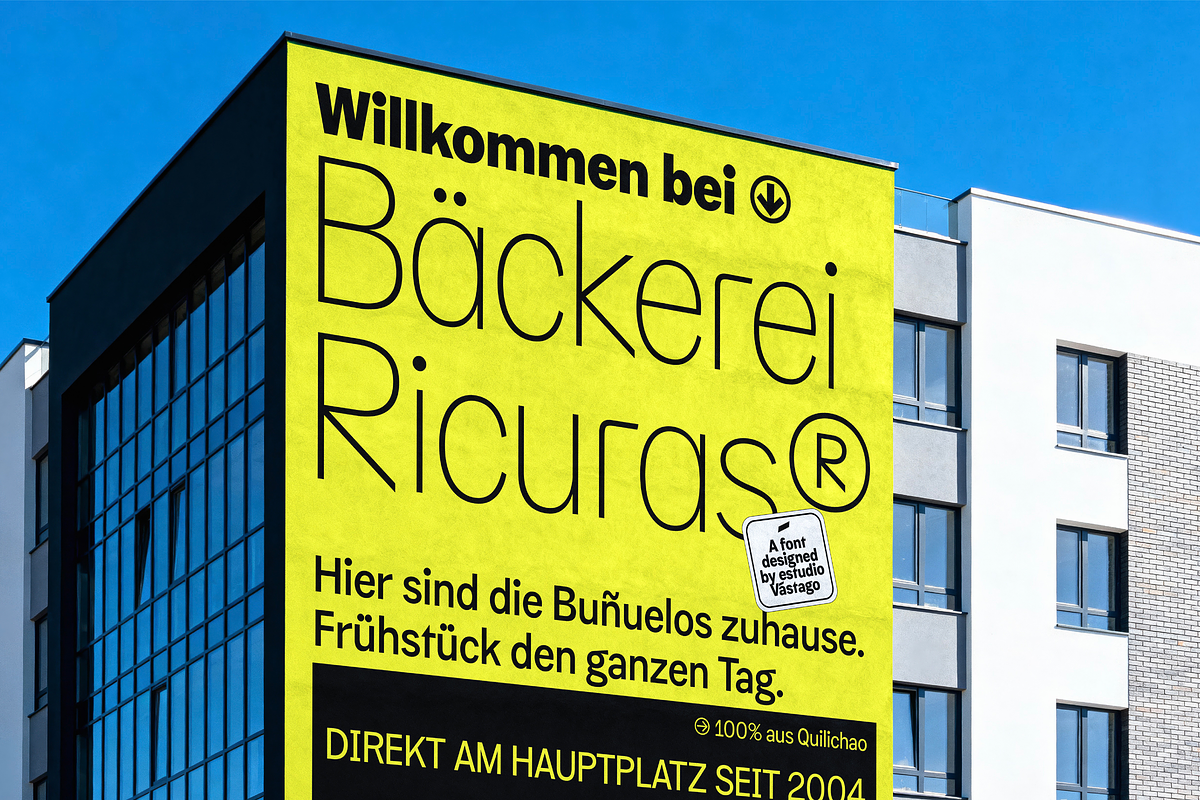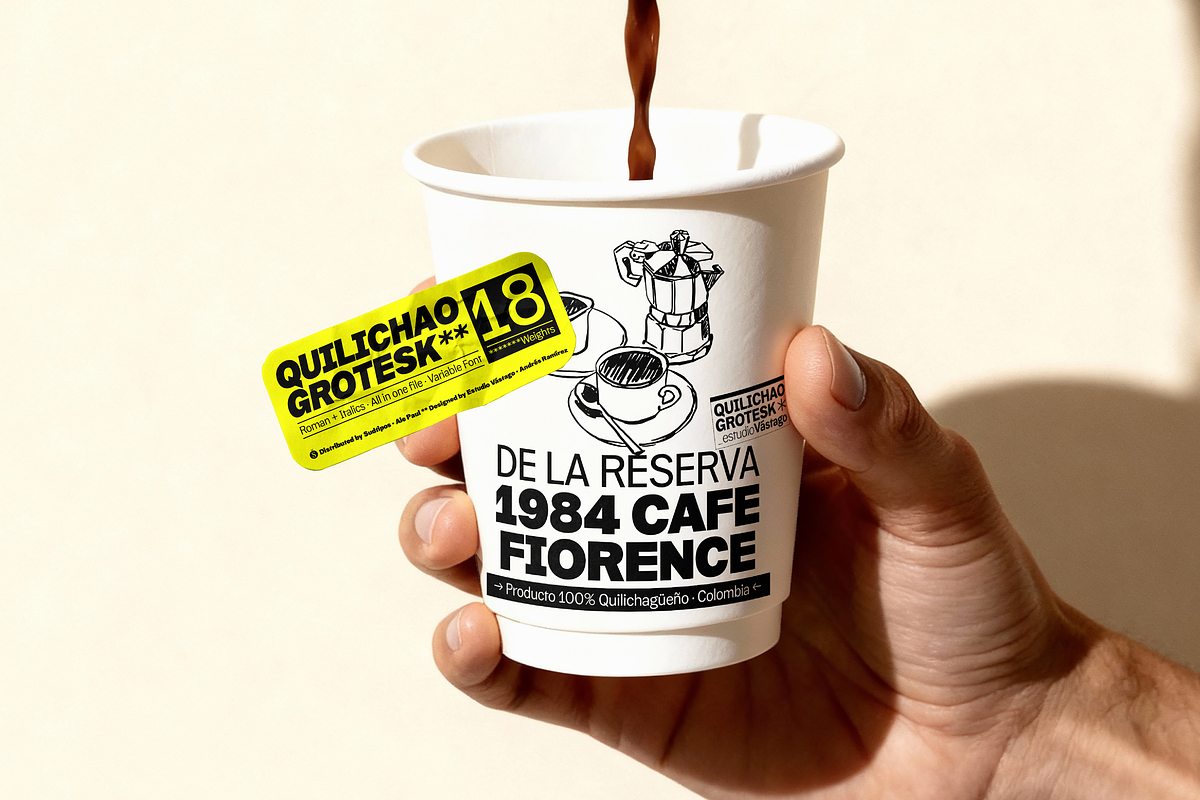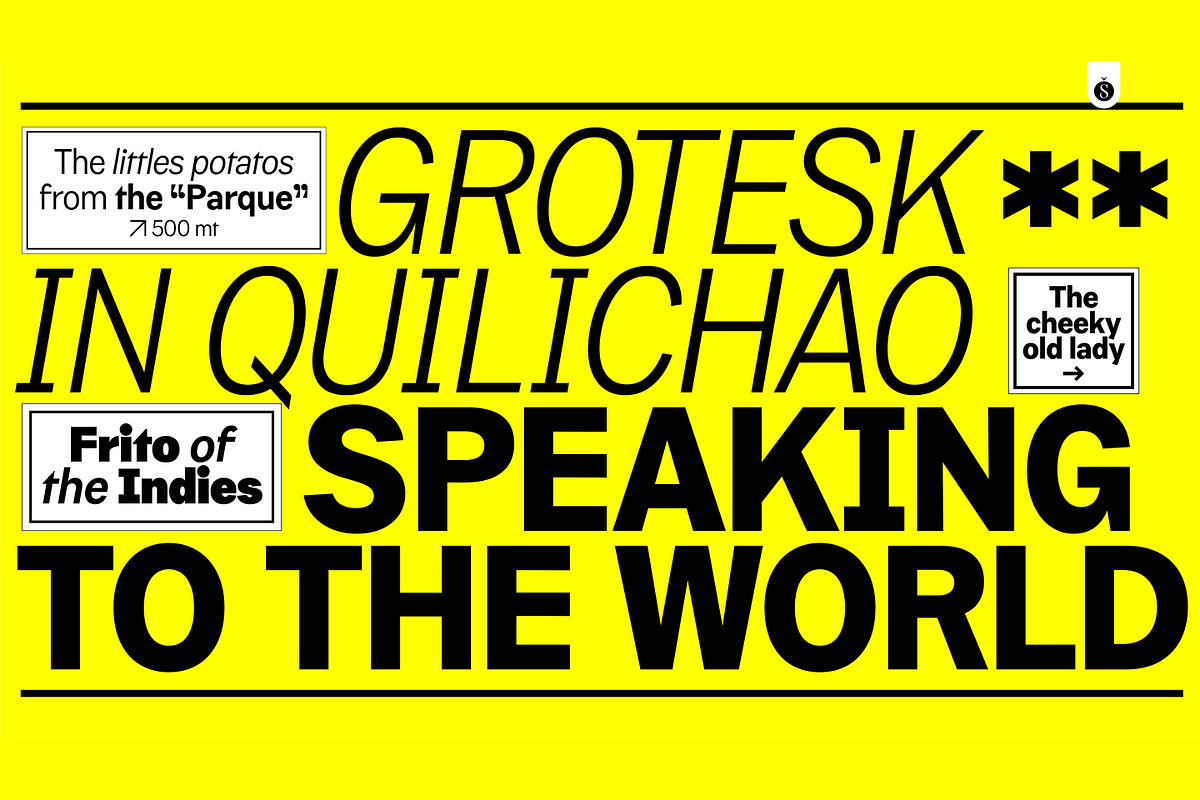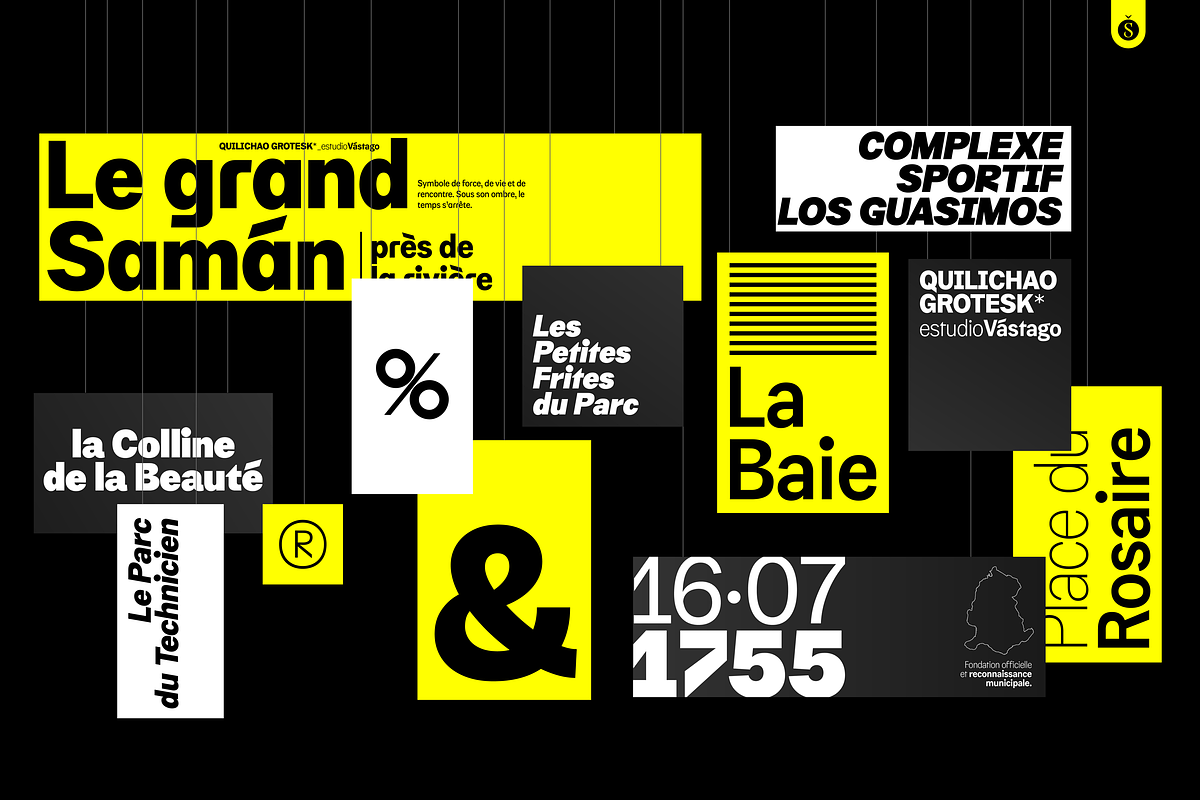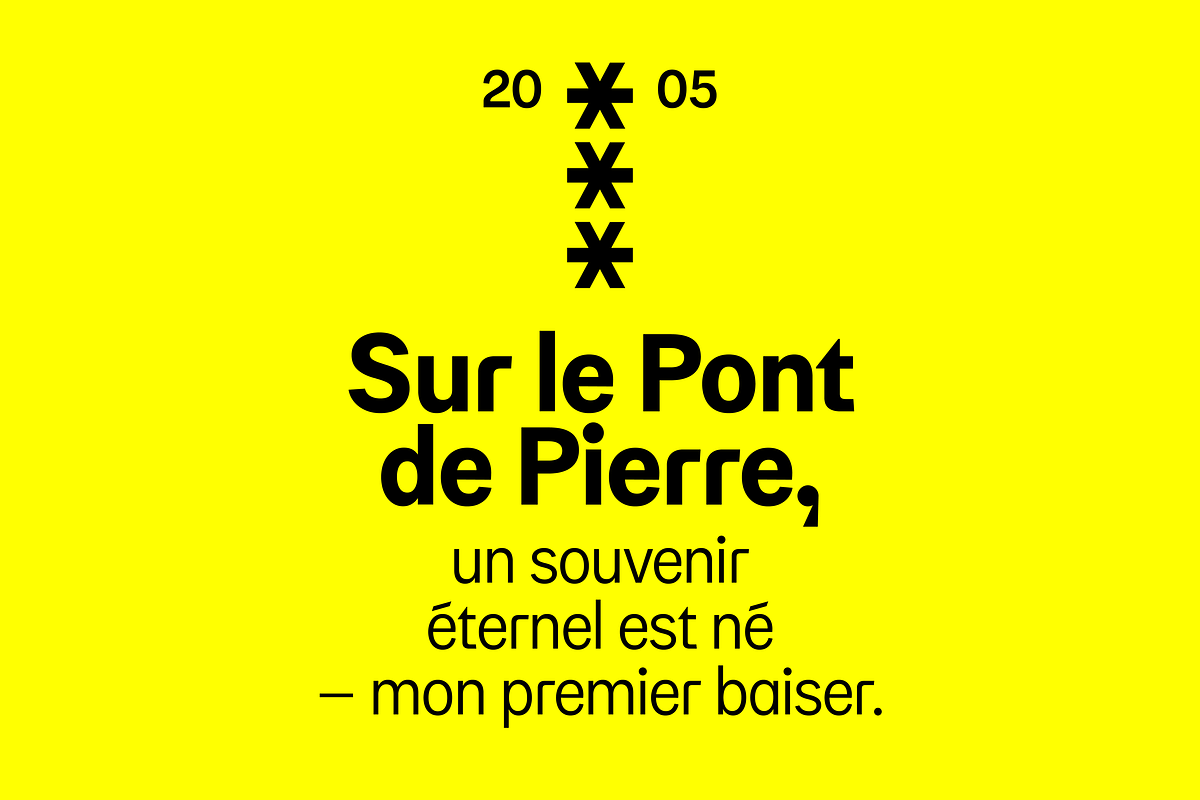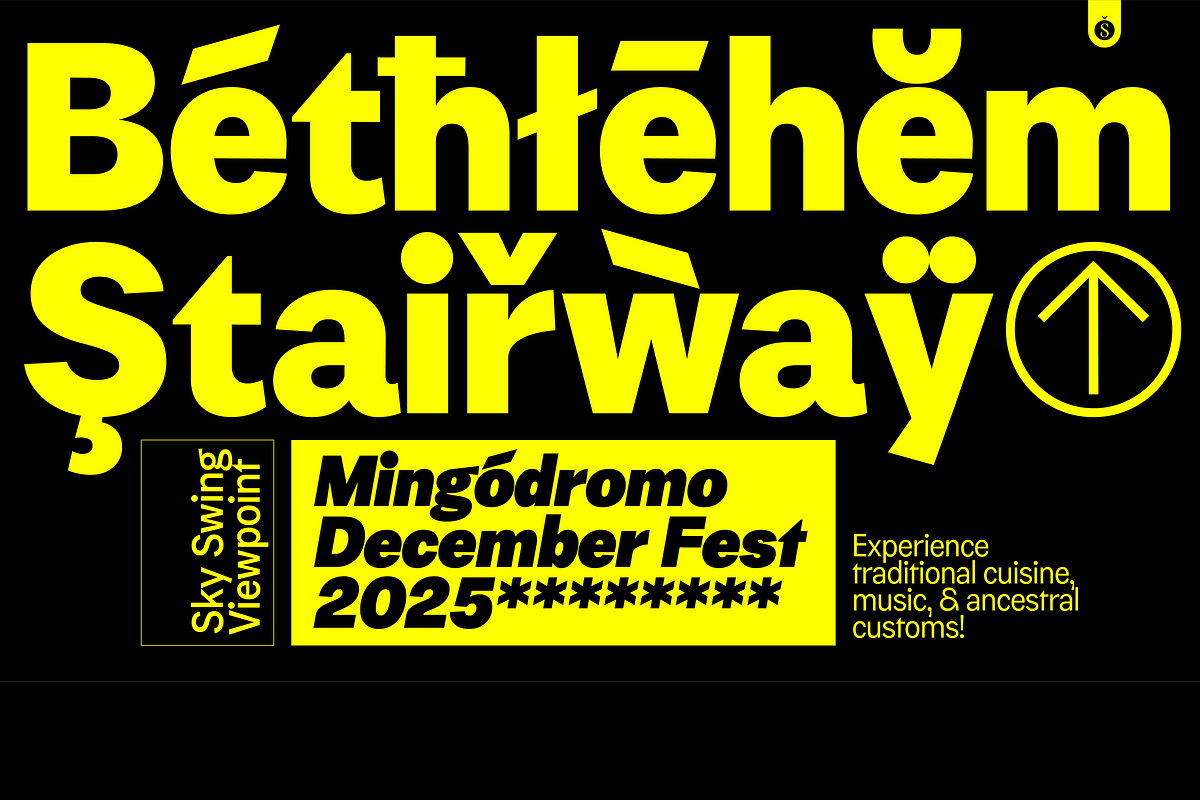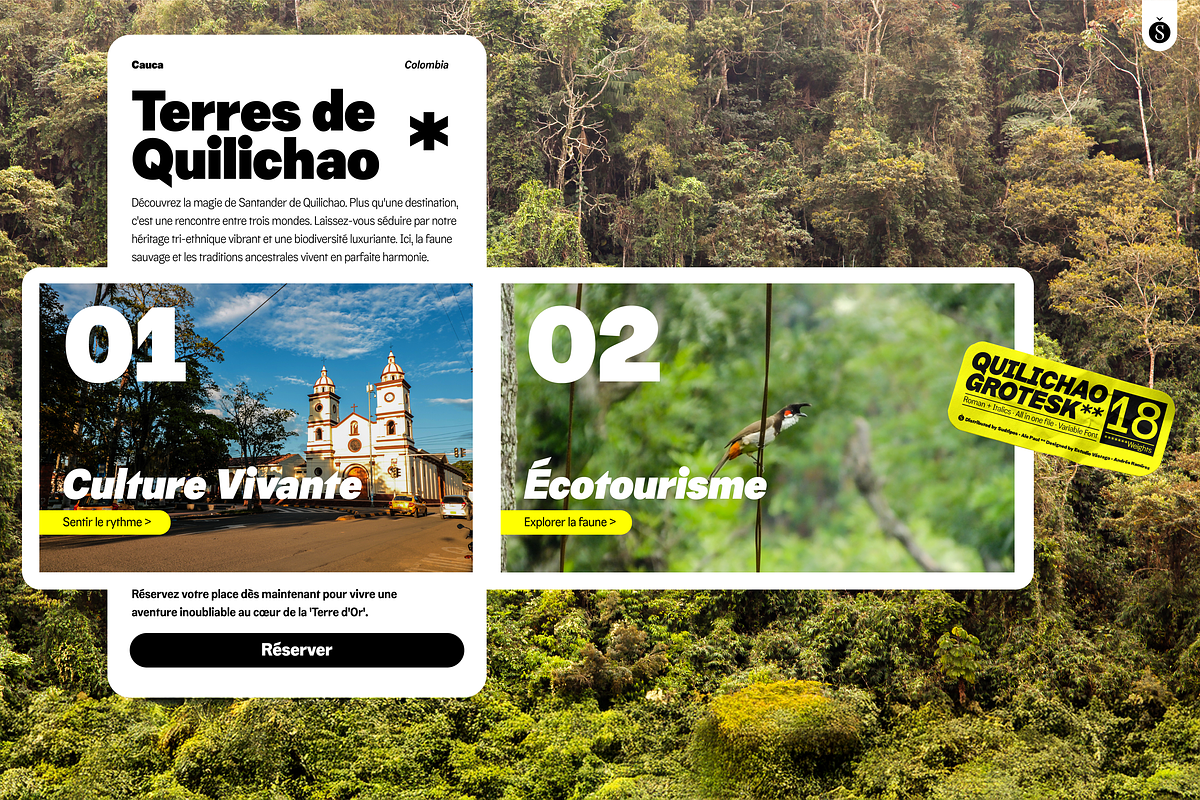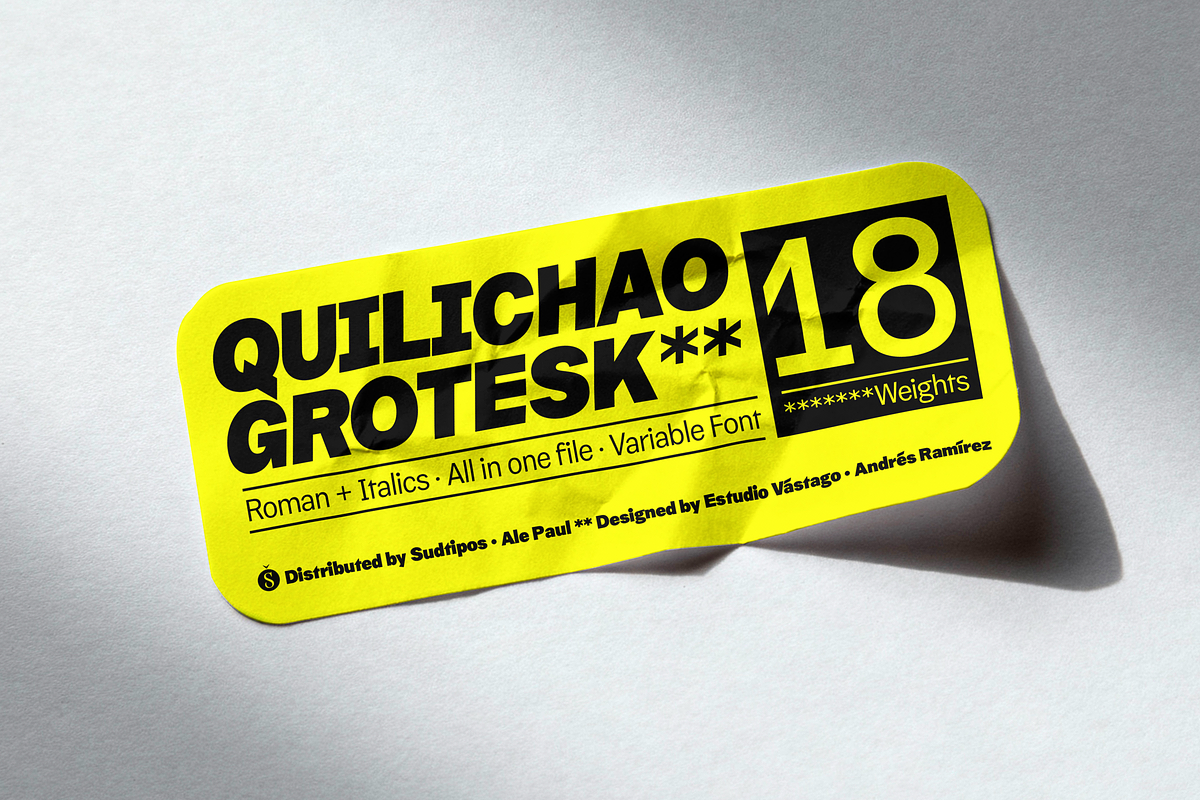
Quilichao Grotesk
At first glance, Quilichao Grotesk reads as a classic neo-grotesque: clean, functional, and built upon a rigorous European structure. And it is. As a type family, it is a robust variable font, designed to address a wide range of visual identity needs through its weight and slant axes. But a closer look reveals something more. The typeface emerges from a profound personal and territorial transformation. Developed during a long period spent in Santander de Quilichao, it reflects the shift from an inward, technique-driven practice toward a design approach shaped by place, time, and listening. What is often perceived as a culturally “small” territory became a catalyst for rethinking design—not as imposition, but as dialogue. Calm, community, and the rhythm of everyday life left their mark on the letterforms. Its most distinctive detail appears in the accents. The acute and grave accents deliberately break from convention, following the precise angle of the letter “V”—the initial of Estudio Vástago. It is a quiet technical signature, almost invisible at first glance, signaling authorship and origin to the trained eye. Quilichao Grotesk is, in essence, a vessel for global, rational aesthetics inhabited by lived experience rooted in Cauca, Colombia. It performs with the precision of a Swiss watch, yet carries the pulse of a real place and a real story.